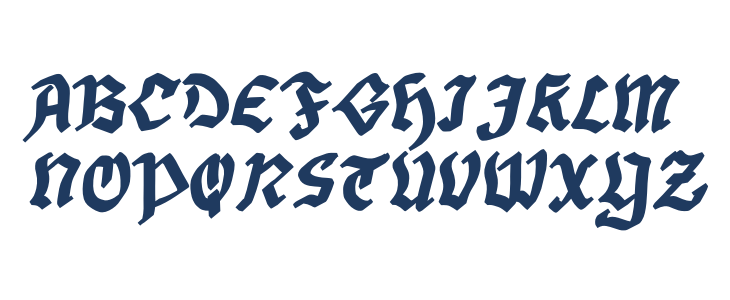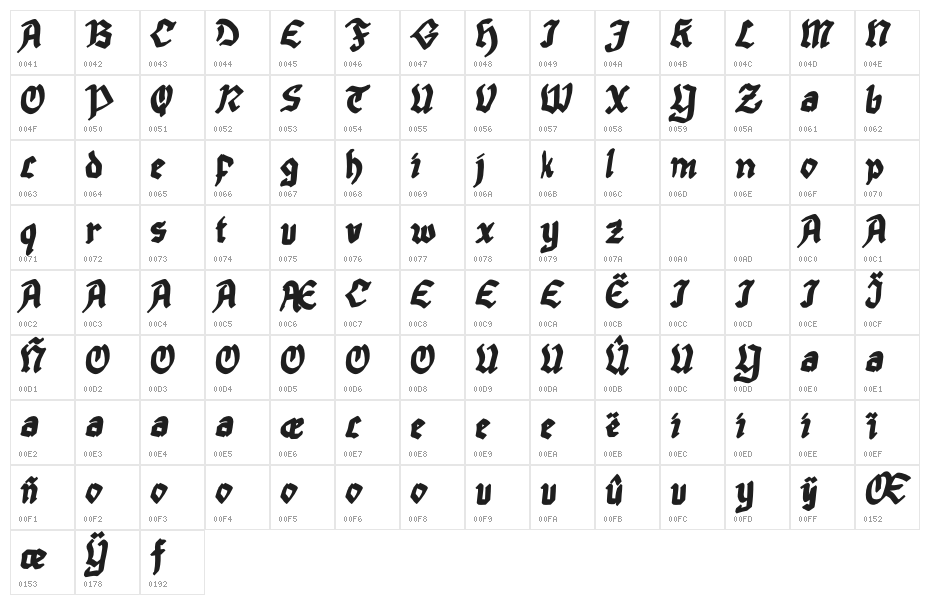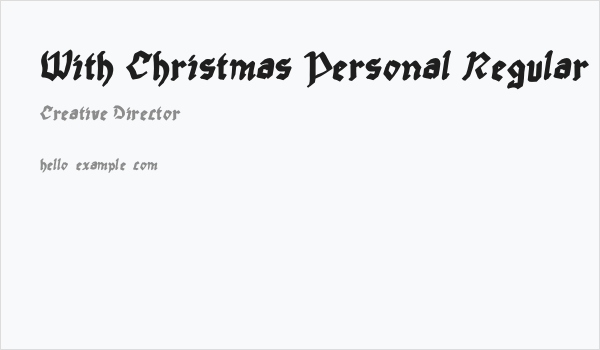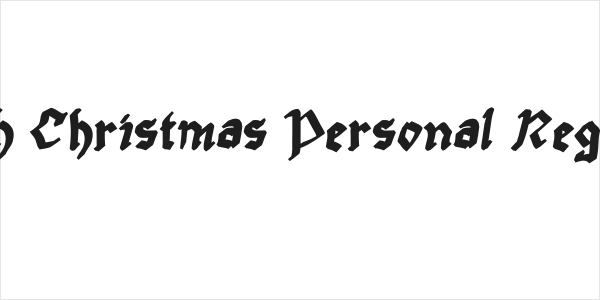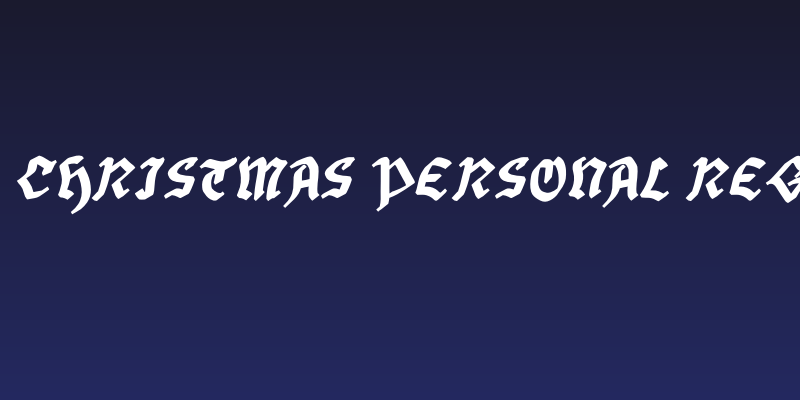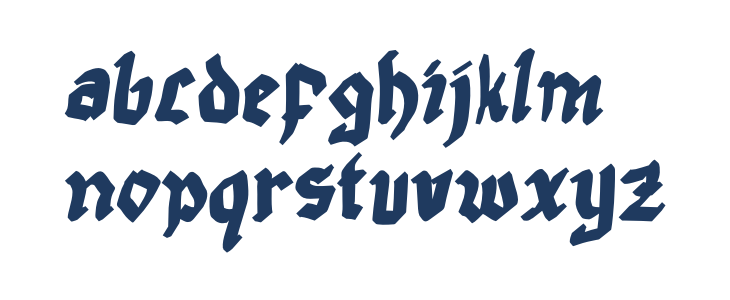
With Christmas Personal Regular Font
With Christmas Personal Regular Description
A decorative blackletter typeface with sharp, angular strokes and dramatic contrast, evoking a traditional, gothic, or medieval aesthetic. The characters are bold and have a hand-crafted appearance, with pronounced serifs and ornamental details.
| Overall Style | Decorative, Vintage, Gothic |
| Use Case | Headlines, Logos, Posters, Decorative text |
| Proposed Projects | Holiday cards, event posters, themed invitations, branding for festive or historical events, book covers. |